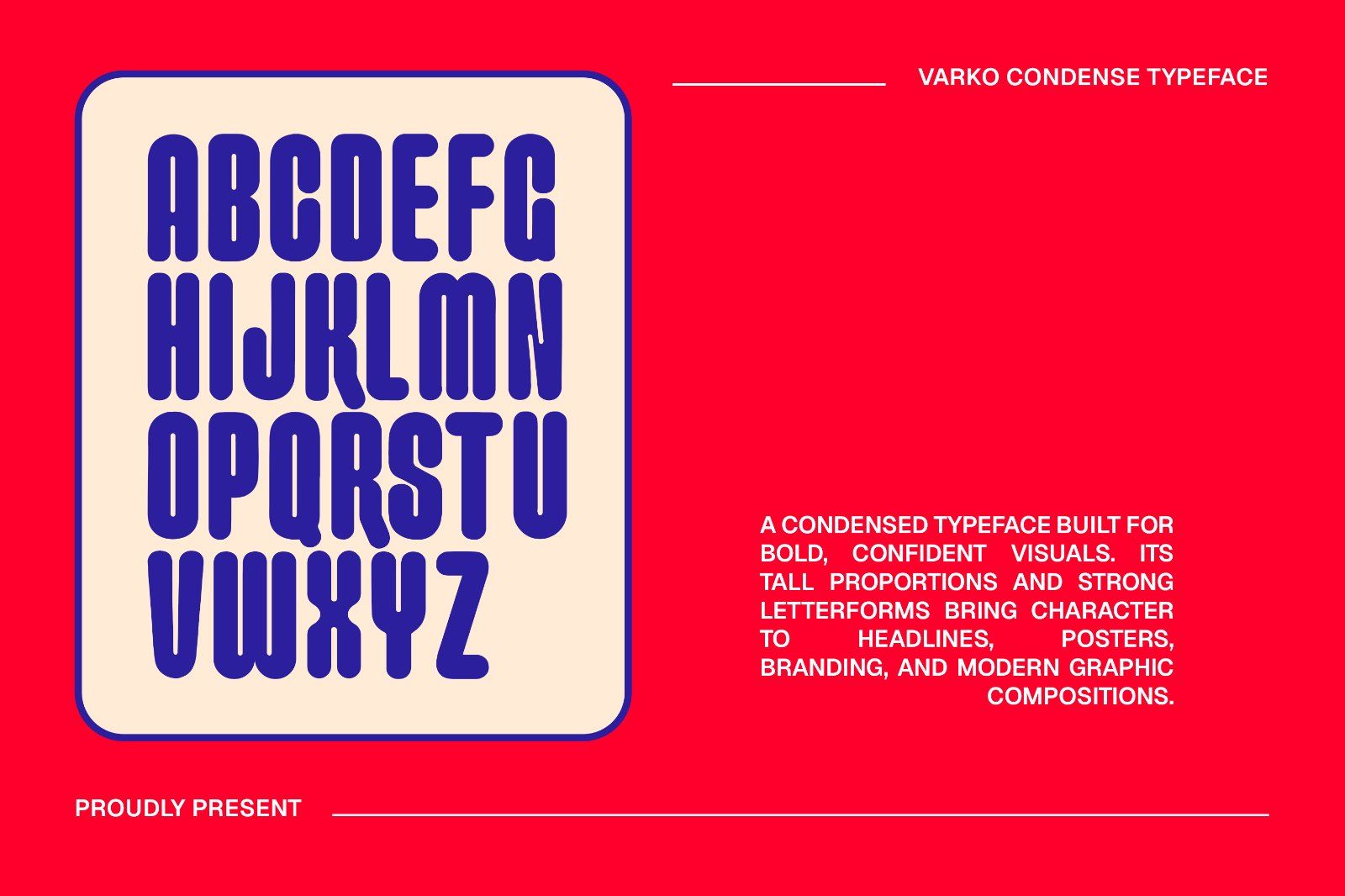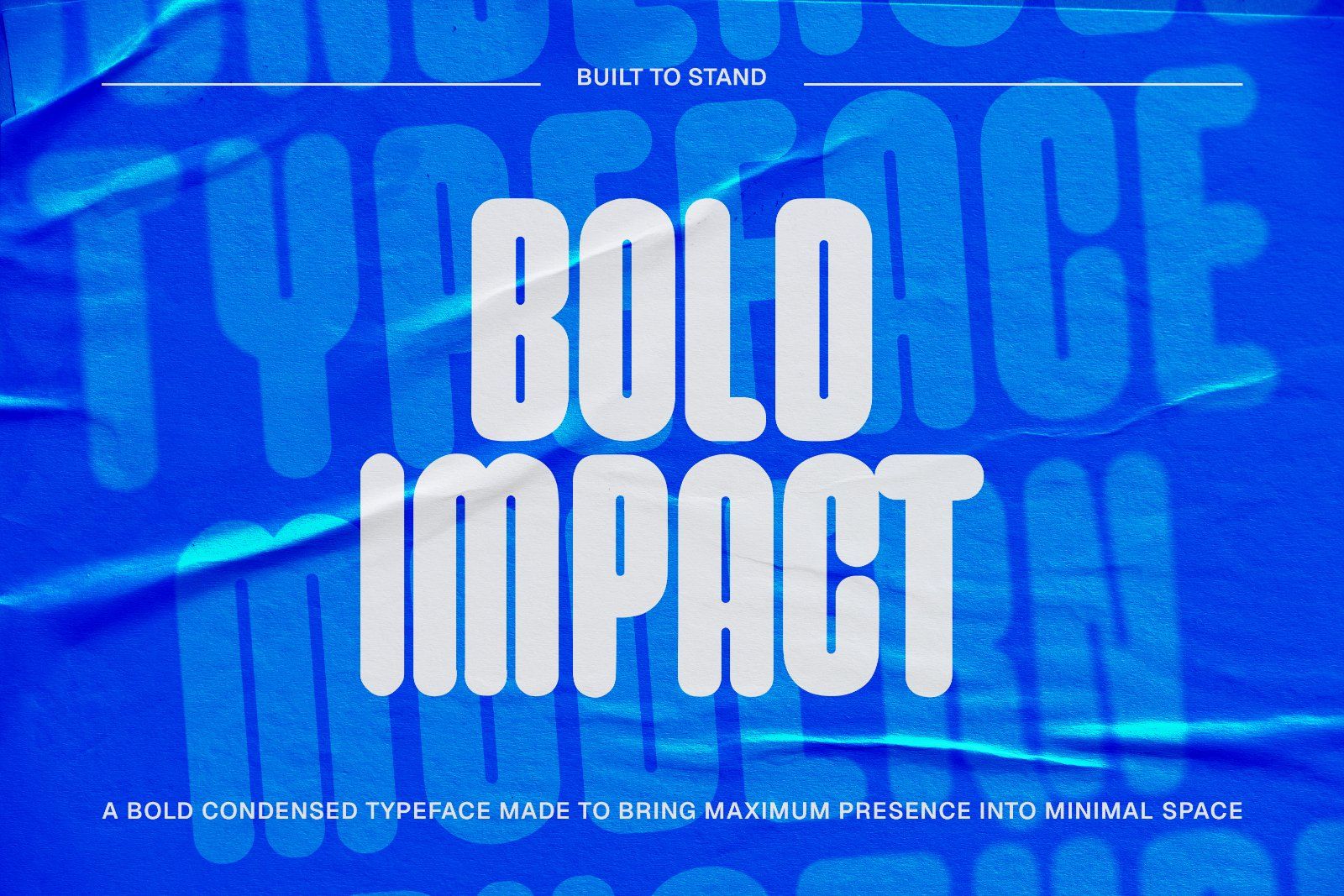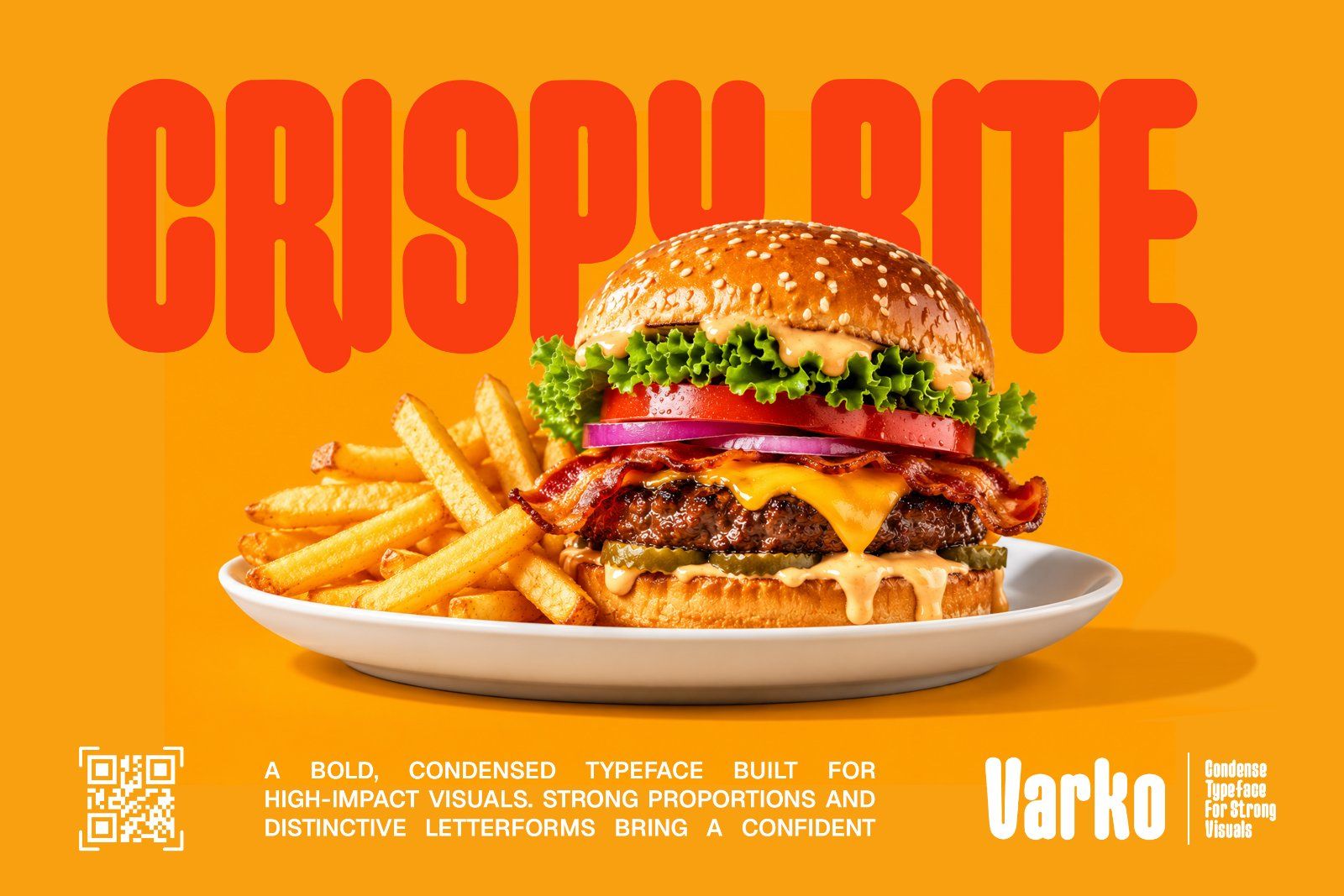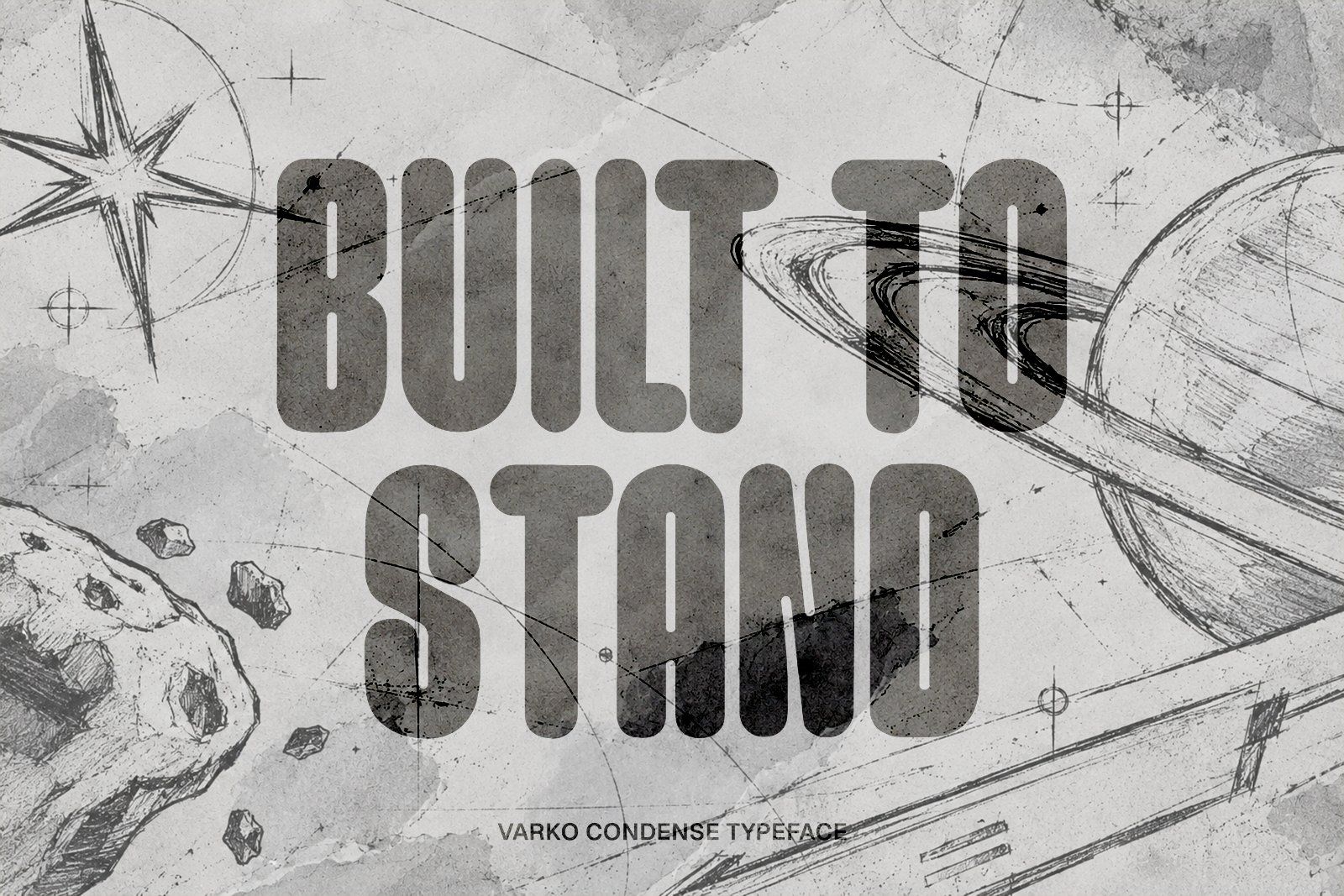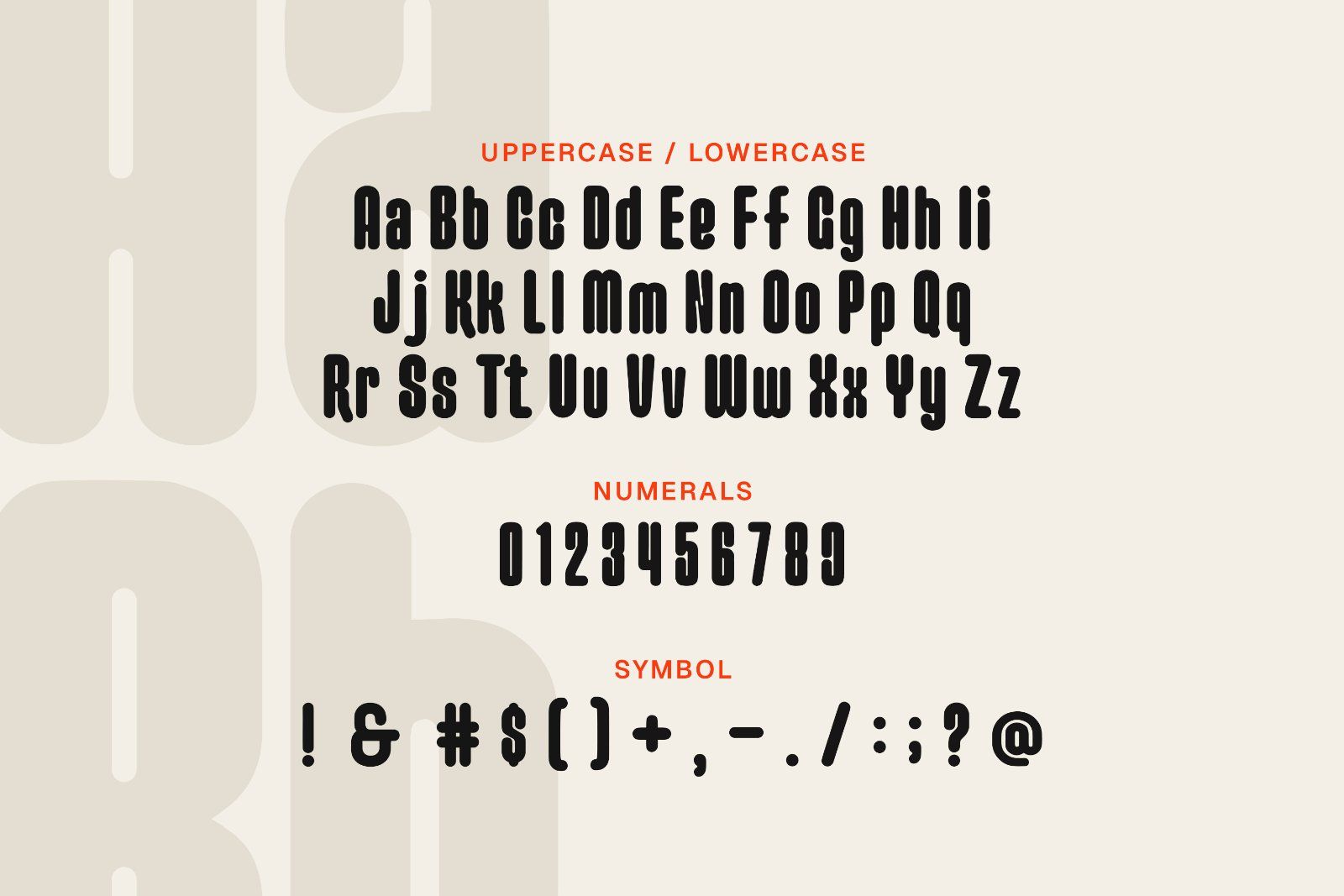
Varko Condense is a bold condensed display typeface designed for maximum visual impact in compact spaces. Its narrow proportions, heavy structure, and distinctive letterforms make it perfect for bold headlines, posters, branding, packaging, and editorial design
• Full set of uppercase and lowercase letters
• Numbers, punctuation, and symbols
• Handcrafted rough brush textures with natural imperfections
• Posters & Headlines
• Brand Identity
• Logo & Wordmark Design
• Editorial Design
• Packaging
• Sports Graphics
Its condensed construction also makes it particularly useful for layouts where horizontal space is limited while maintaining a bold and commanding appearance.
Varko Condense is made for strong visuals, bold statements, and designs that demand attention.